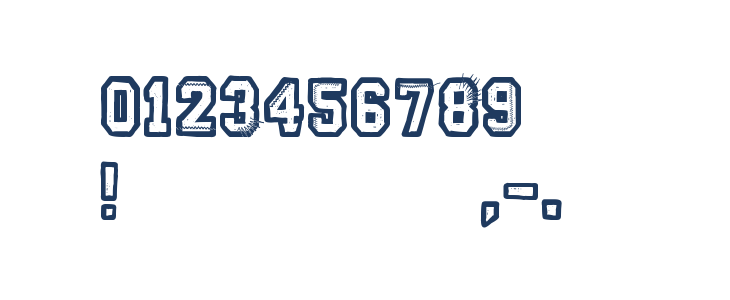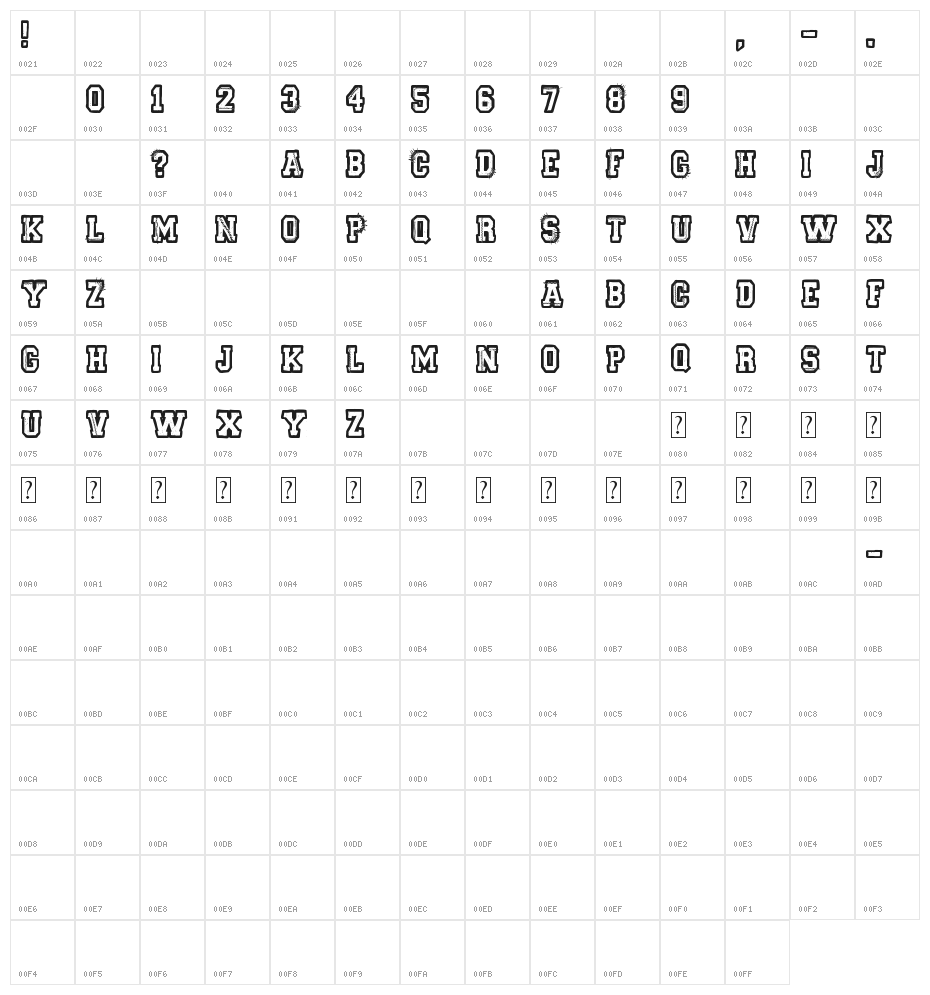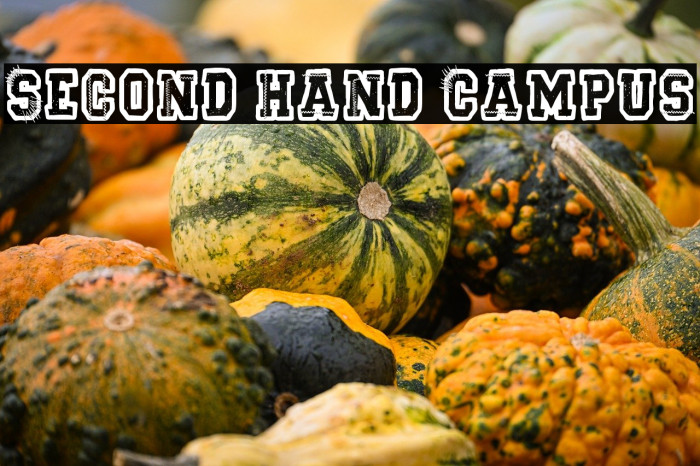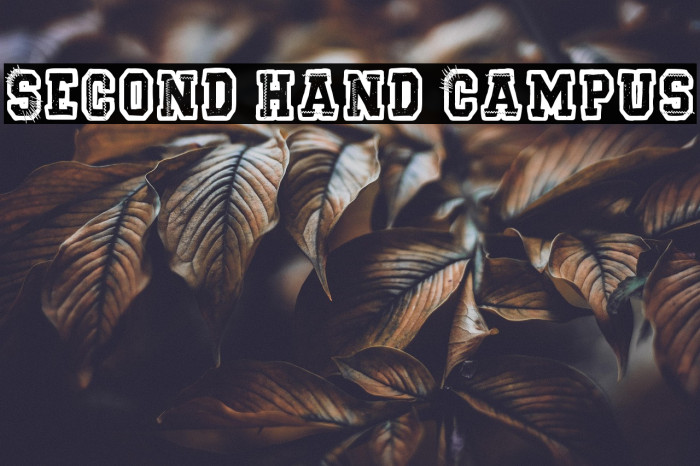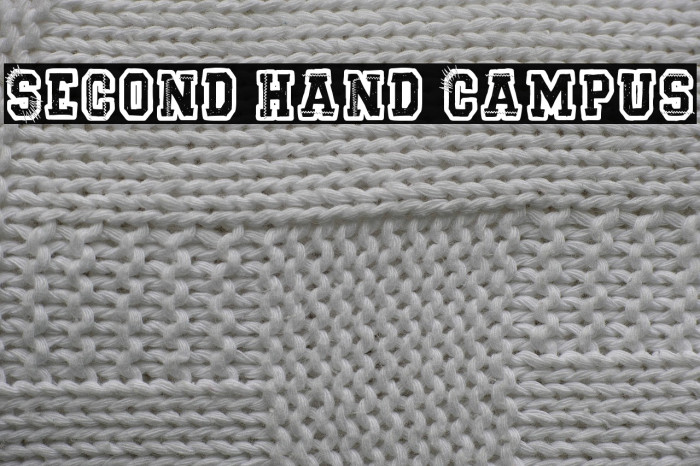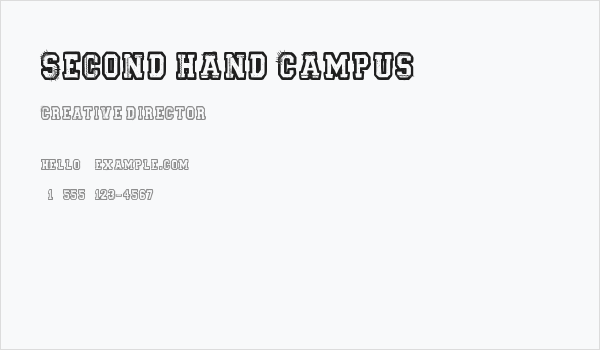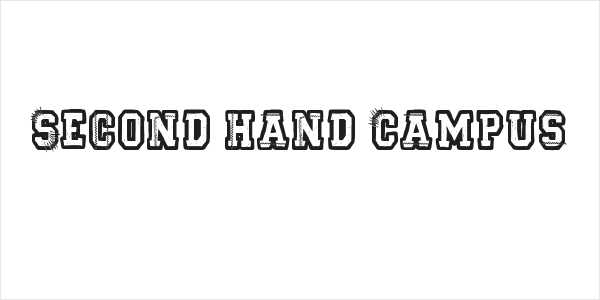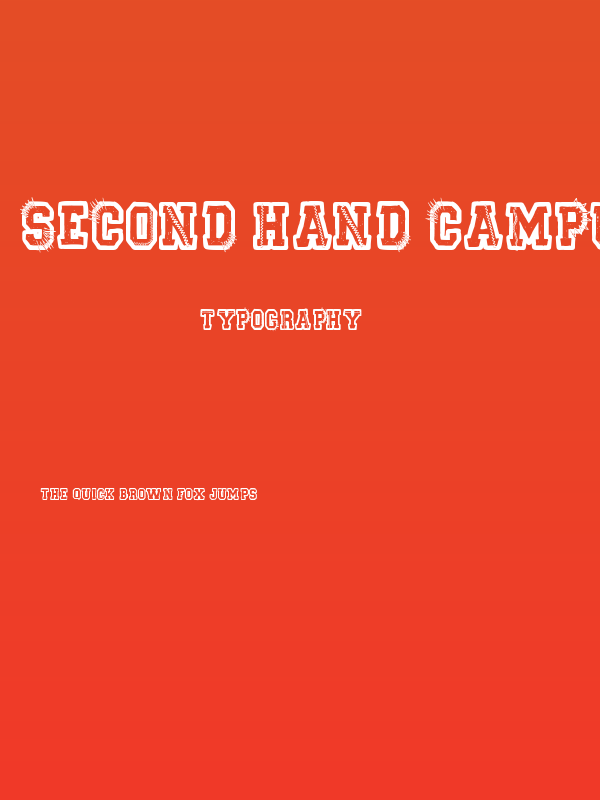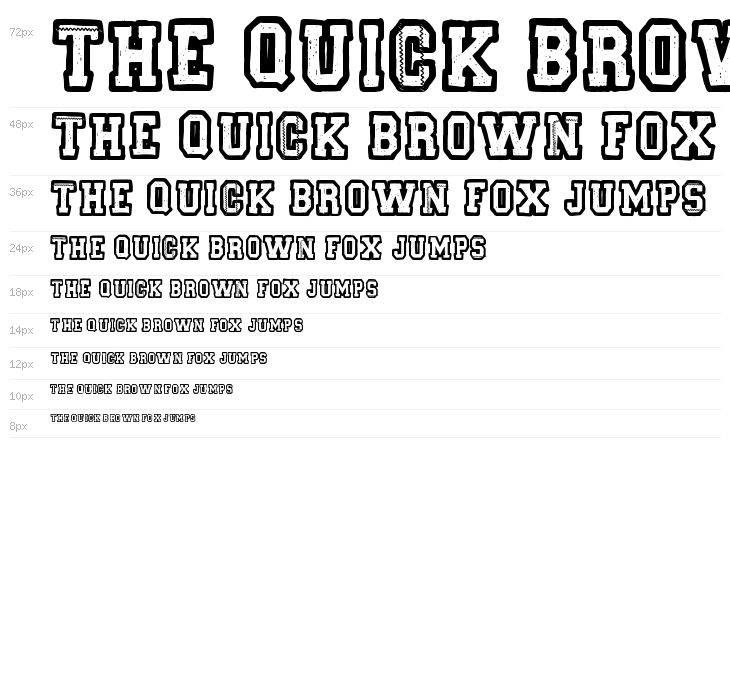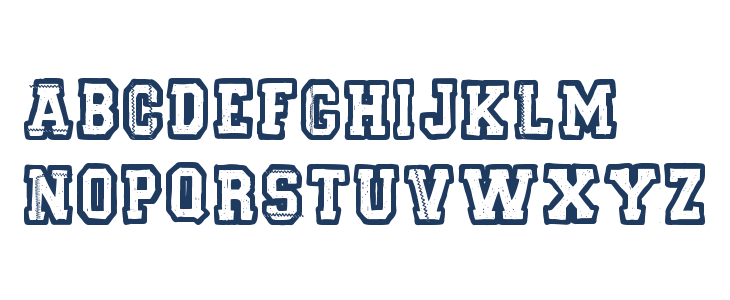
Second Hand Campus Font
Second Hand Campus Description
This font features a bold, distressed style with a vintage, collegiate feel. Each character is outlined and filled with a textured, worn effect, giving it a rugged and weathered appearance. The uppercase letters are prominent and impactful, while the numbers and special characters maintain the same distressed aesthetic. The font's design is reminiscent of old sports jerseys or college campus signage, making it ideal for projects that require a retro or nostalgic touch. Its unique texture adds character and depth, making it stand out in any design.
| Proposed Projects | Perfect for retro-themed designs, sports team branding, vintage posters, and college event promotions. |